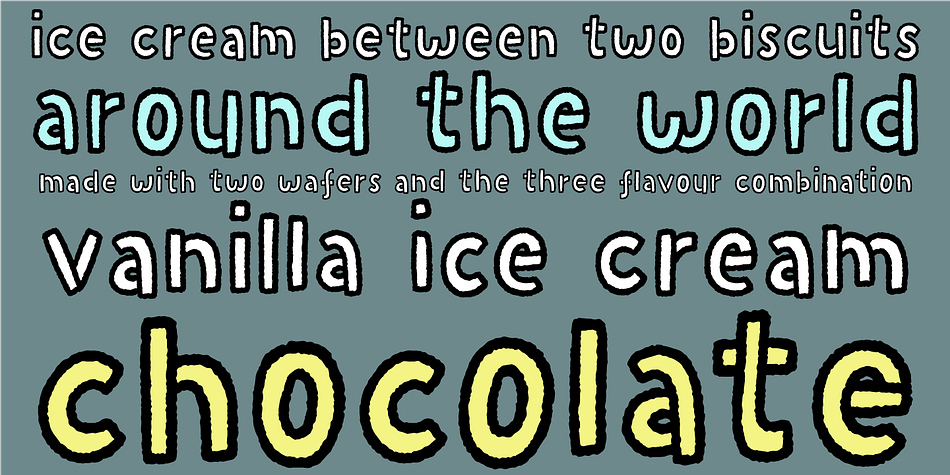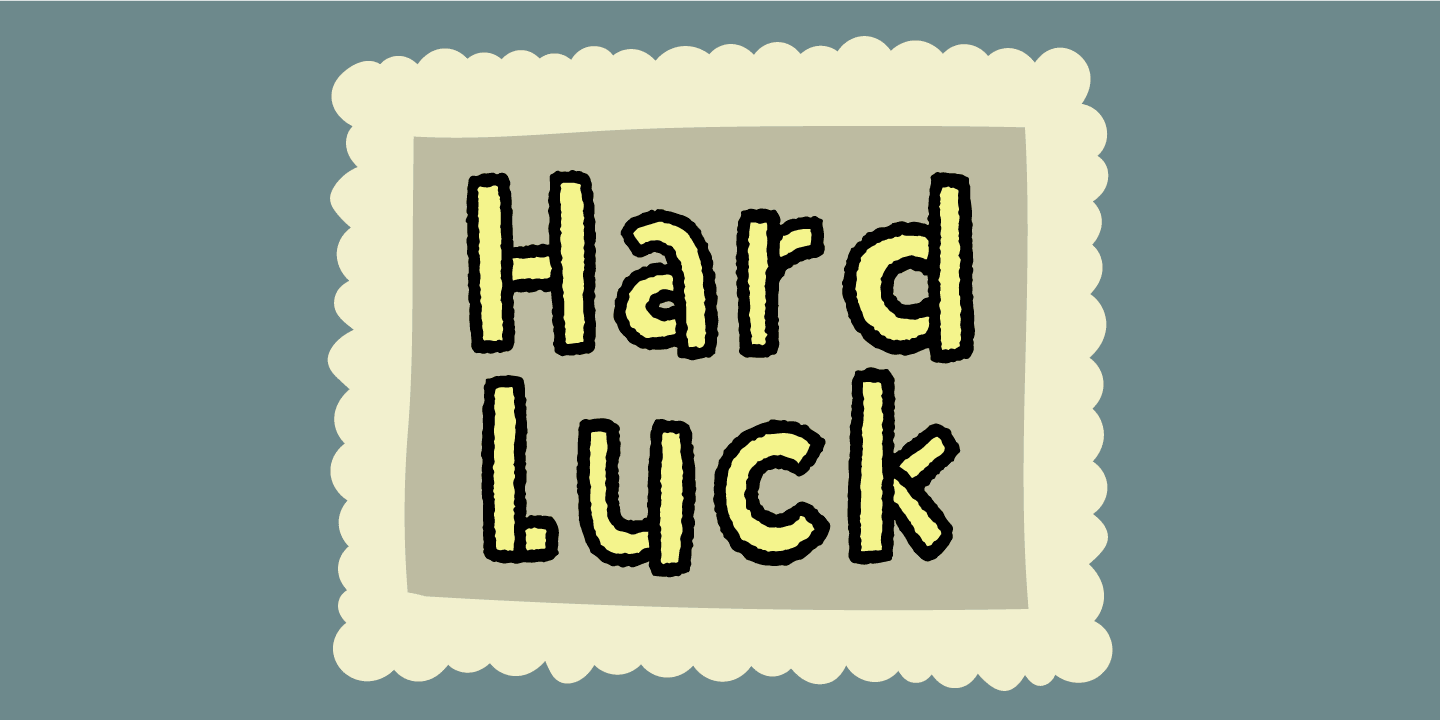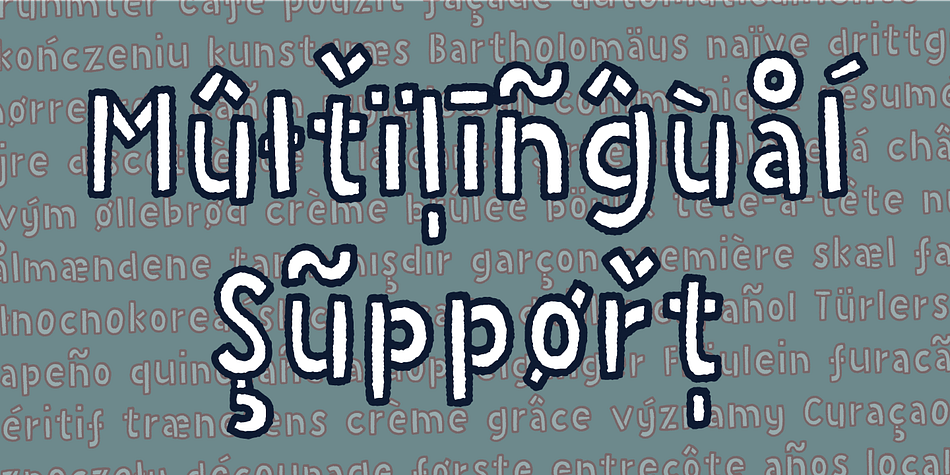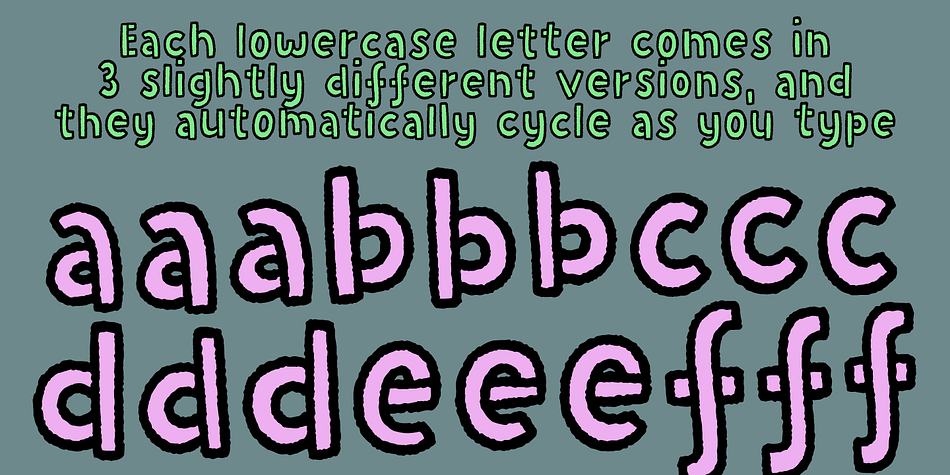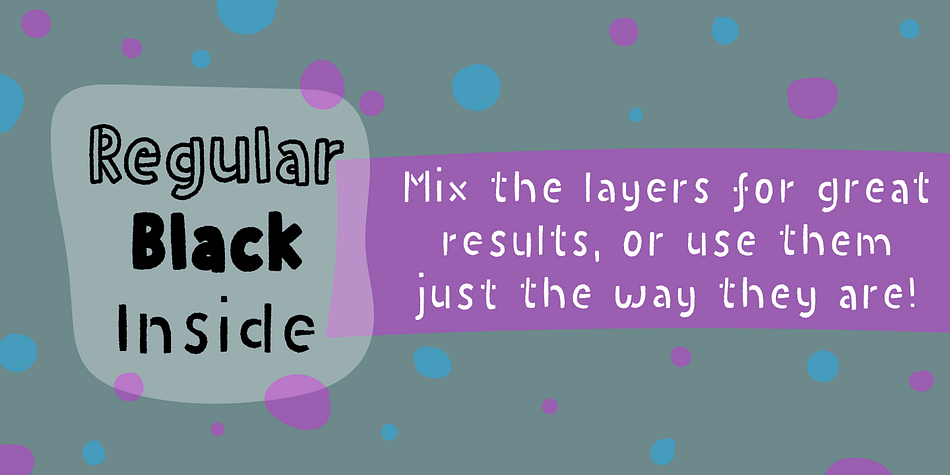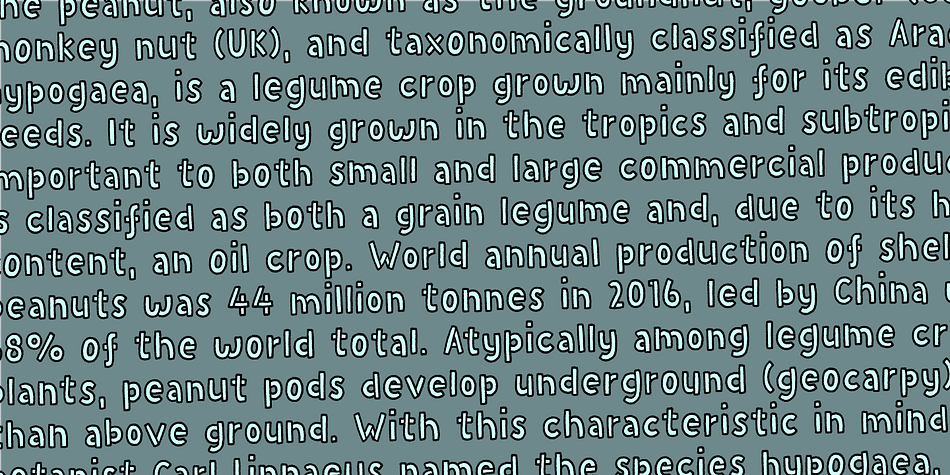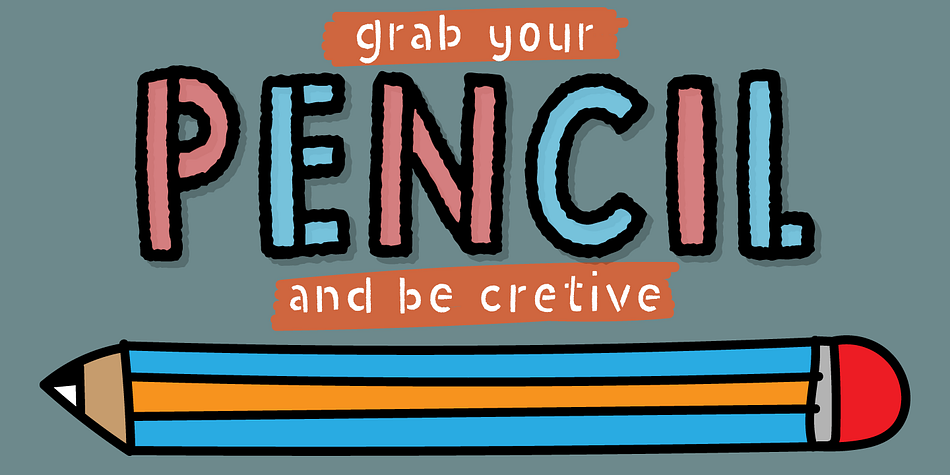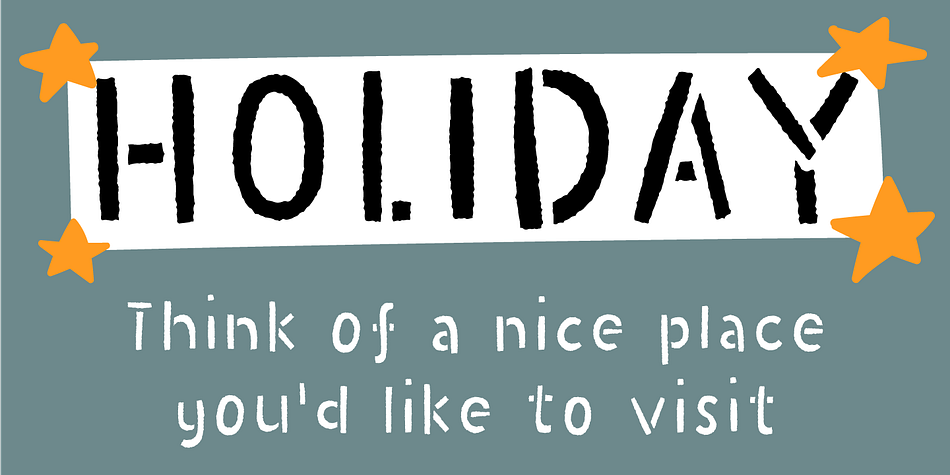
Hard Luck
Designed by Jakob Fischer, Hard Luck is a hand display and kids font family. This typeface has three styles and was published by Pizzadude.dk.
It’s hard luck if you’re designing a poster for a creative event, and you’re looking for a good fontmatch.
But it’s not hard luck if you use this font for that particular purpose, because I designed it for that!
How’s that for good luck?! :)
BTW, the font has a nice crunchy line (in all 3 versions!) and I have added 3 slightly different versions of each lowercase letter!